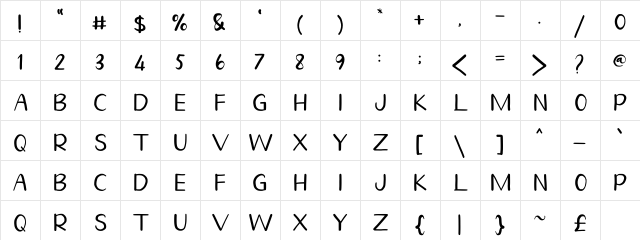
Homegarden Sans Regular
Design Context for Homegarden Sans Typeface
Homegarden Sans offers clean, dependable letterforms without strong stylistic allegiance, making it a practical choice for designers who need flexibility.